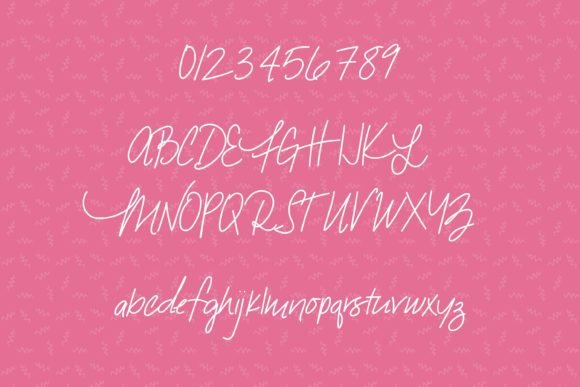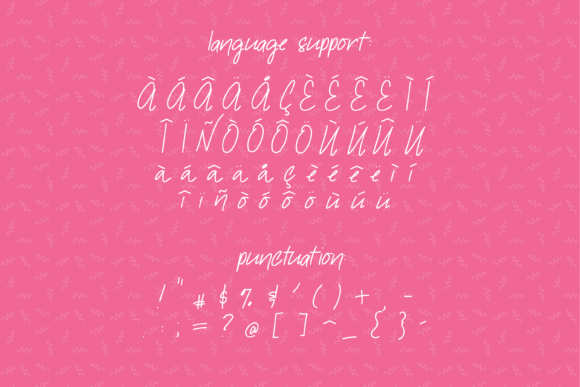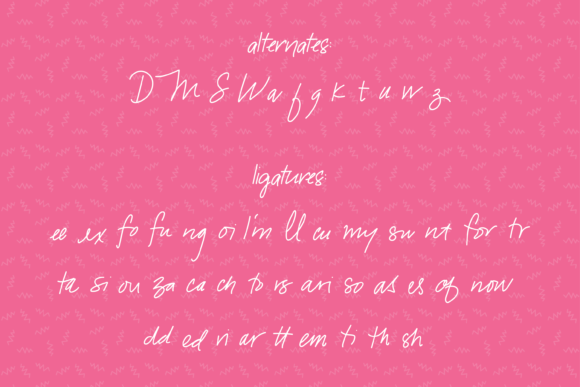
Introduction to Snarky Flamingo Font Font
Fonts play a crucial role in design, and the Snarky Flamingo Font font is a typeface that brings both character and versatility to any project. Whether you’re working on a branding project, a website, or a print design, the Snarky Flamingo Font font offers a unique style that can elevate your work.
Snarky Flamingo is a bold and playful script font that exudes quirky charm and personality.
This font features smooth, curvy strokes with an energetic flair, making it perfect for projects that call for a fun, carefree vibe Snarky Flamingo is ideal for branding projects, creative designs, quirky quotes, and more.
Key Features of Snarky Flamingo Font Font
Why Choose Snarky Flamingo Font Font?
The Snarky Flamingo Font font is more than just a typeface – it’s a design tool that helps you communicate your message with style and clarity. Its unique character set and versatile design make it suitable for a wide range of applications, from elegant invitations to bold headlines.
With its carefully crafted letterforms and balanced proportions, the Snarky Flamingo Font font ensures readability and visual appeal across all mediums.
What makes Snarky Flamingo Font font special?
The Snarky Flamingo Font font stands out with its unique design, exceptional readability, and versatility across various design applications.